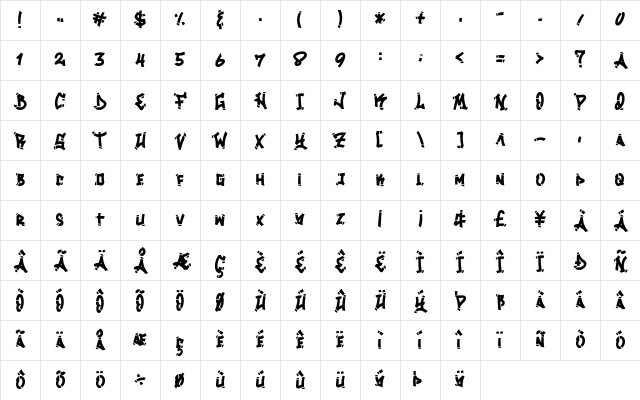
Losdol Regular Free Font
Losdol Regular
Foundry: Typotopia
Designer: Khusnun Irawan
Design Context for Losdol
Losdol is a composed and adaptable typeface that performs quietly and consistently across a wide range of design contexts.